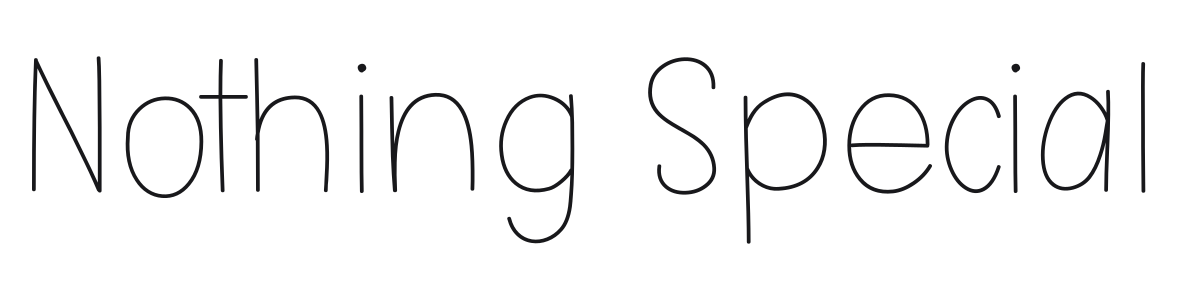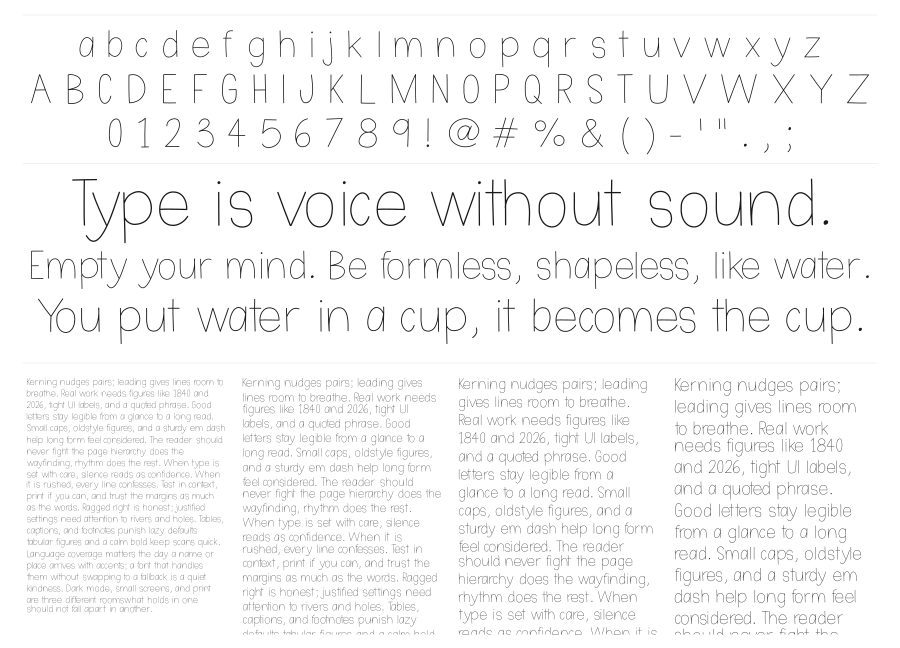
Nothing Special
Nothing Special is a hairline geometric sans-serif defined by its ultra-thin strokes and quiet, airy presence. The near-zero stroke contrast and gently rounded terminals give it a soft, modern minimalism that reads as refined without trying too hard. Works best large, where the fine lines can breathe.